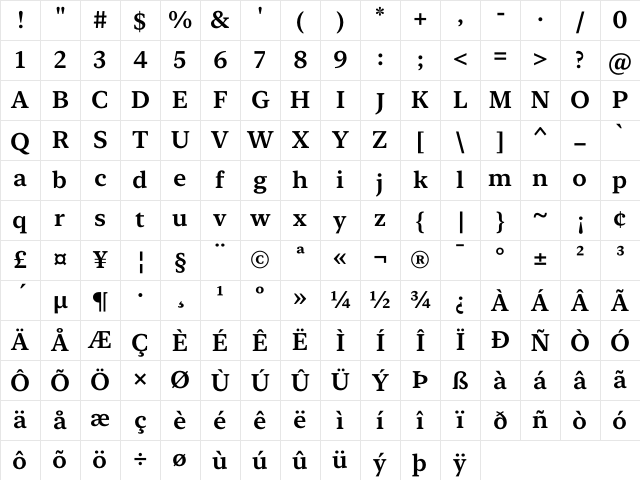
Complete New York Small Semibold glyph index. Displaying only characters natively supported by New York Small Semibold font.
New York Small is a composed and adaptable typeface that performs quietly and consistently across a wide range of design contexts. Its bold stroke weight gives it real presence on the page.